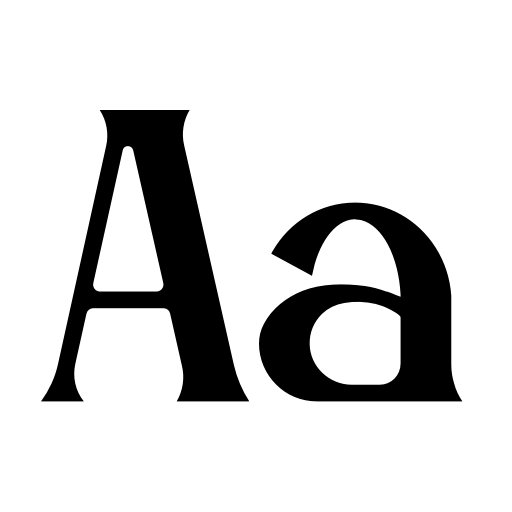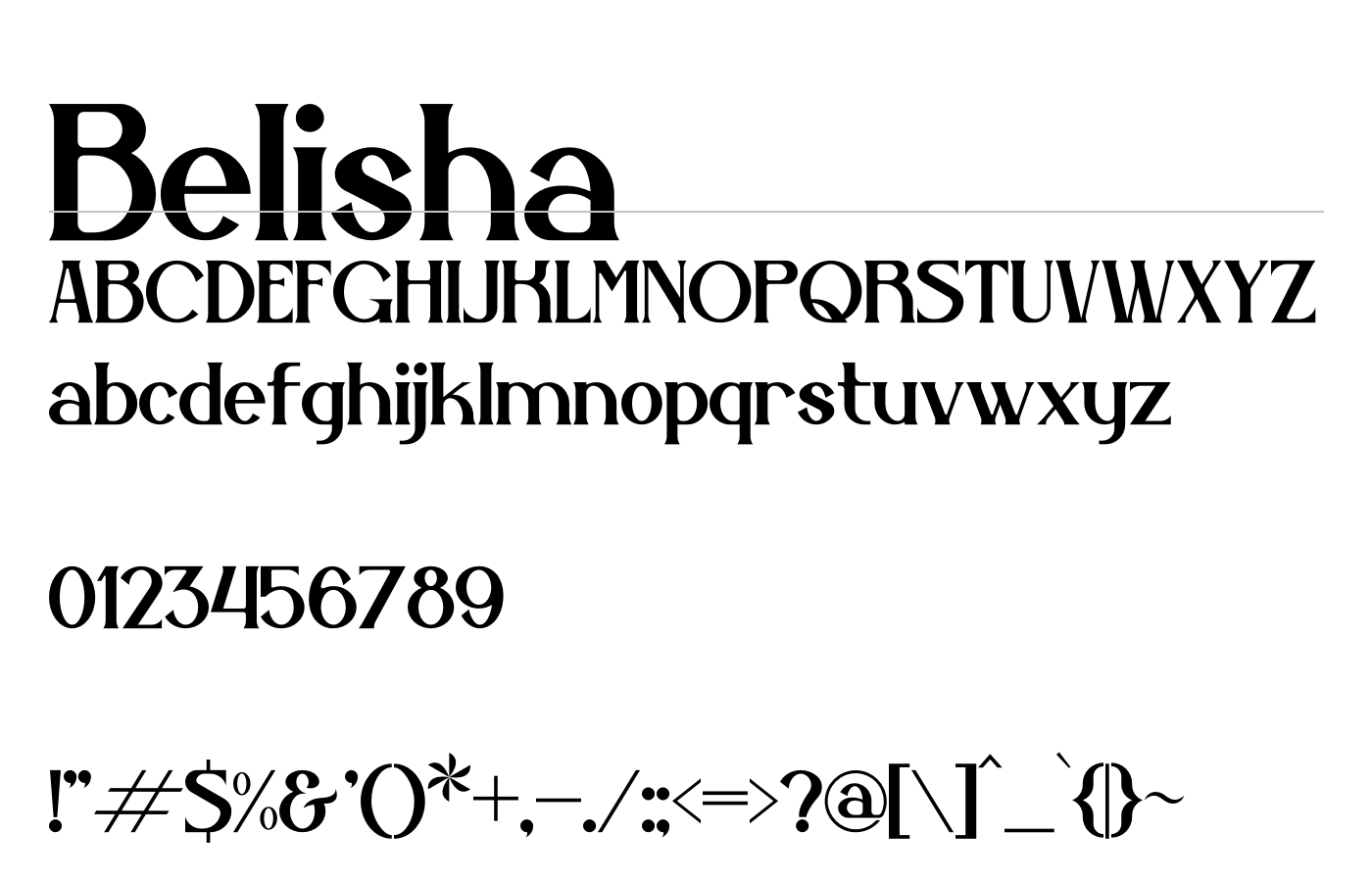
Belisha is a distinctive serif font with elegant high contrast strokes and sharp, bracketed serifs that give it a refined yet bold personality. Its unique letterforms, featuring a high x-height and a mix of geometric and classic details, make it perfect for luxury branding, editorial headlines, and sophisticated logo designs that need a timeless and confident look. This font’s blend of modern sharpness and vintage flair enhances any project aiming for a stylish and memorable impression.
Belisha Font
About Belisha Font